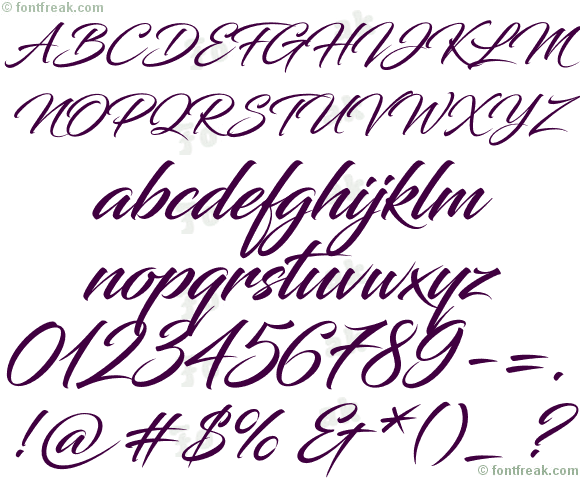
Blacksword
About Blacksword
Blacksword by Youssef Habchi is an elegant display font that falls within the script category, perfect for adding a touch of sophistication to various design projects. This font showcases a fluid, cursive style characterized by its sweeping strokes and graceful curves. The contrast between thick and thin lines creates a dynamic visual appeal, while the ample spacing between letters ensures readability, making it suitable for both headlines and body text. With its decorative elements, Blacksword exudes a sense of artistry that can elevate any design.
Ideal use cases for the Blacksword font include wedding invitations, where its romantic flair can enhance the overall aesthetic; movie posters, where the dramatic style can attract attention and convey emotion; and restaurant menus, adding a touch of class to the dining experience. Additionally, it can be effectively utilized for branding projects, logos, and promotional materials aimed at a creative audience. The font's versatility makes it a valuable asset for graphic designers, small business owners, and content creators seeking to make a memorable impression.
What sets Blacksword apart is its unique blend of elegance and readability, making it both visually striking and functional. This balance allows it to stand out in a crowded market of display fonts. The availability of the Blacksword font free download makes it accessible for anyone looking to enhance their design projects without breaking the bank. Whether you're crafting a heartfelt invitation or a captivating promotional piece, Blacksword offers a distinctive touch that resonates with audiences, ensuring your work remains timeless and impactful.